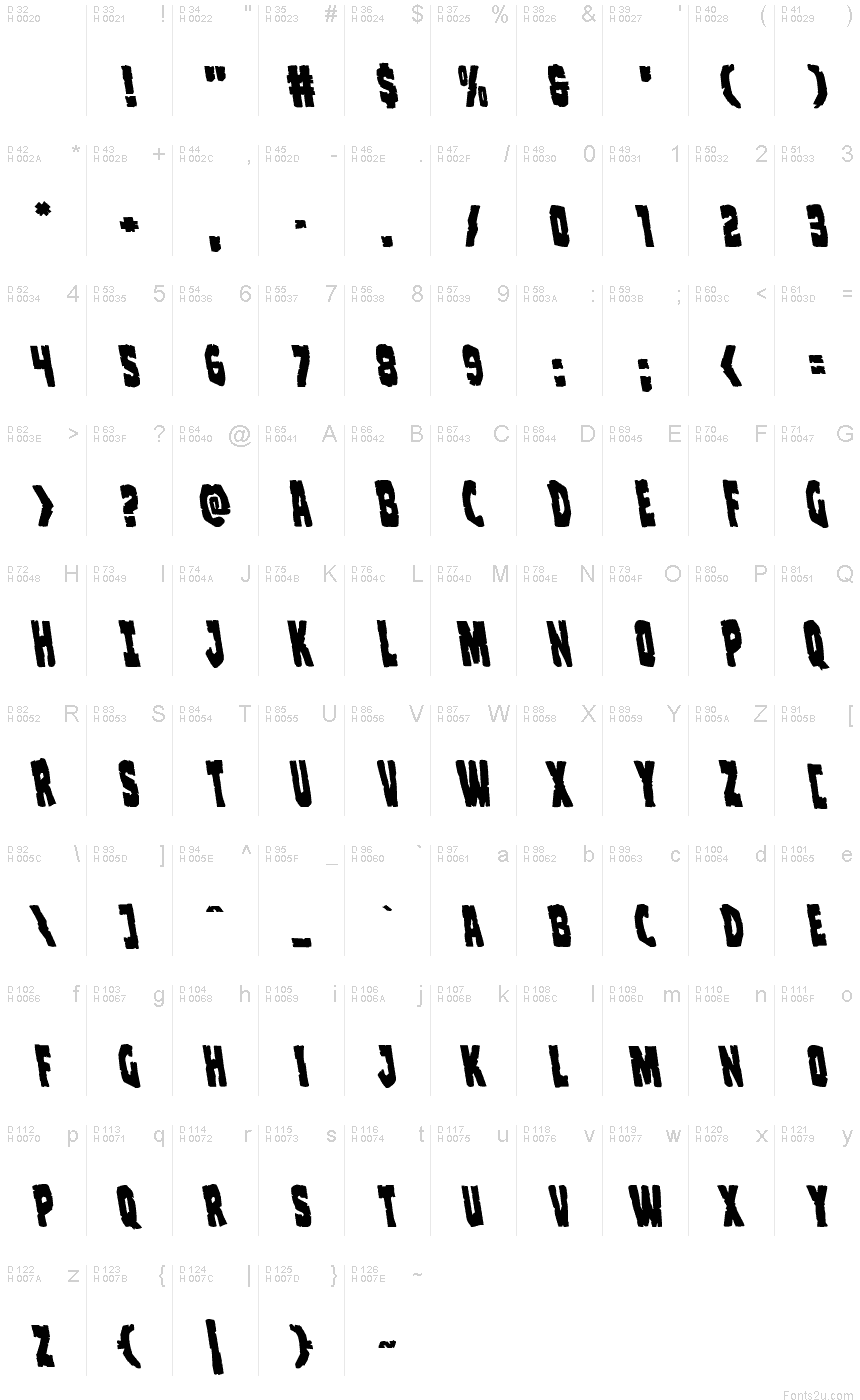
Clubber Lang Leftalic, designed in 2013 by Iconian Fonts, is a free distorted cartoon display font with a hulking, irregular silhouette. The letters lean and lurch at uneven angles. Thick strokes, pinched joins, and ragged notches make the forms look roughly cut and tightly packed.
It can turn a title into part of the action for wrestling posters, arcade game graphics, and heavy music merchandise. The battered contours suit comic covers and sports branding, echoing torn-paper edges.
Clubber Lang Leftalic